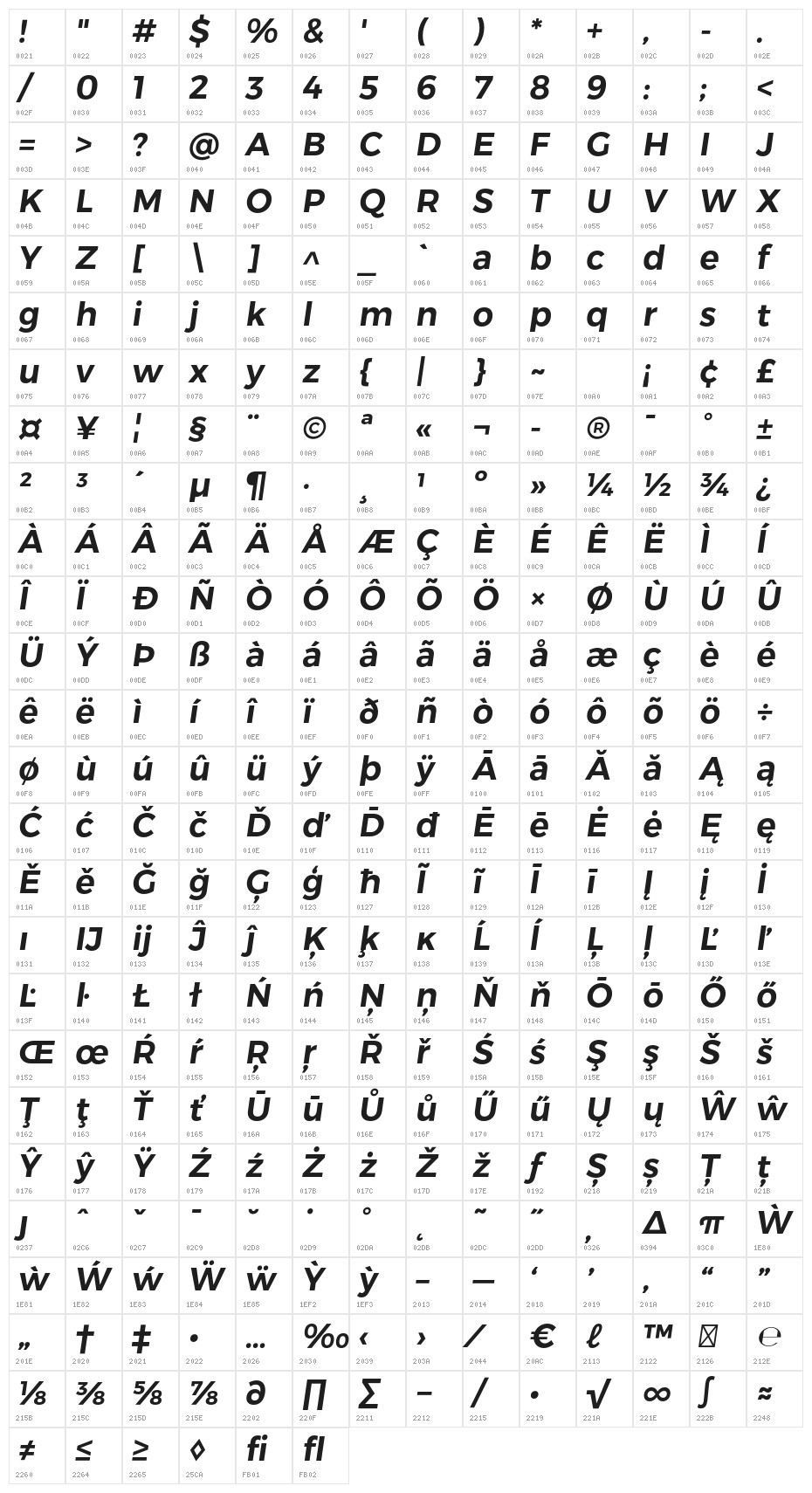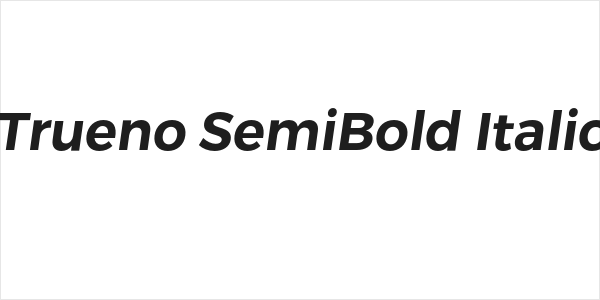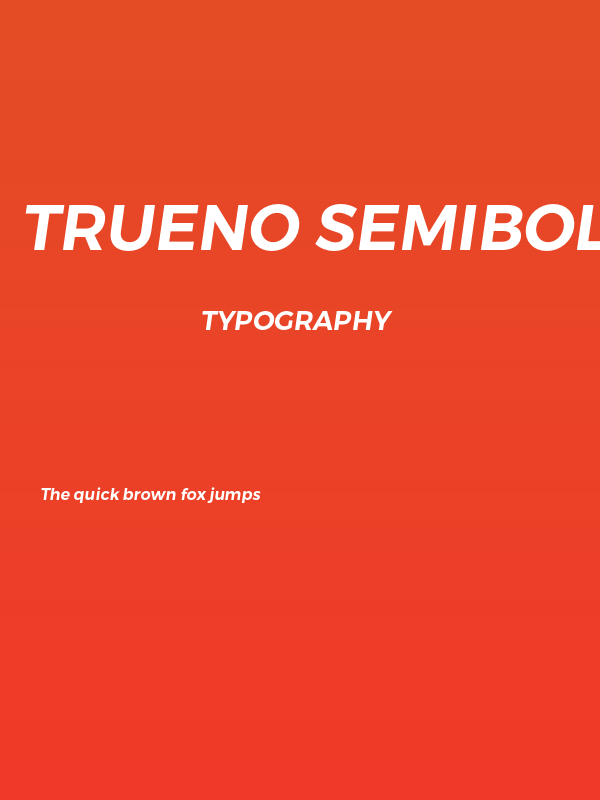
Trueno SemiBold Italic Font
Trueno SemiBold Italic Description
This font features a clean and modern sans-serif design with a semi-bold weight, offering a balanced and professional appearance. The italic style adds a dynamic and elegant touch, making it suitable for both formal and creative contexts. The characters are well-proportioned, with smooth curves and a consistent stroke width that enhances readability. The numerals and special characters maintain the same stylistic integrity, ensuring a cohesive look across different text elements.